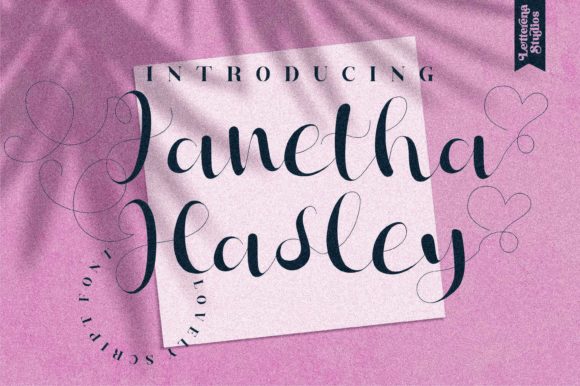
Unveil the Enchantment of Janetha Hasley: A Font Symphony for Hearts Entwined
In the realm of digital artistry, where words take flight and emotions find their voice, there exists a font that embodies the very essence of romance and affection: Janetha Hasley. This exquisite script typeface, crafted by the skilled hands of Letterena Studios, is an ode to the power of love, a symphony of glyphs that dance and twirl like lovers in an eternal waltz.
With its graceful curves and delicate flourishes, Janetha Hasley is a font that whispers of heartfelt confessions, whispered promises, and the timeless allure of a love letter penned with utmost sincerity. Its characters flow harmoniously along the baseline, like a river of ink guided by an unseen hand, carrying your words to the depths of your beloved's heart.
This font is not merely a collection of letters; it is an instrument of expression, a conduit through which emotions can find their truest form. Whether you seek to create a logo that exudes elegance, a wedding invitation that captivates the senses, or a simple love letter that speaks volumes, Janetha Hasley is your muse, your faithful companion in the journey of love.
Adorned with a treasure trove of glyphs and swashes, Janetha Hasley is a font that grants you the freedom to explore the depths of your creativity. With its PUA encoding, you can effortlessly access a world of embellishments, transforming your text into a tapestry of visual delight.
Imagine the joy of receiving a love letter handwritten with Janetha Hasley, each word a testament to the sender's devotion. The curves of the letters, like Cupid's arrow, pierce through the heart, leaving an imprint that time cannot erase. Or picture the elegance of a wedding invitation adorned with Janetha Hasley, its graceful strokes hinting at the love story that is about to unfold.
With Janetha Hasley, your creations will transcend the ordinary, becoming vessels of emotion, messengers of love. Let this font ignite the passion within your heart, and let your words dance upon the page, guided by the enchanting rhythm of Janetha Hasley.
So embrace the allure of Janetha Hasley, and embark on a journey of love and creativity that will leave an everlasting imprint on the hearts of those you touch. Let your words flow like honey, your messages carried on the wings of this extraordinary font, and experience the transformative power of Janetha Hasley, the font that speaks the language of the heart.